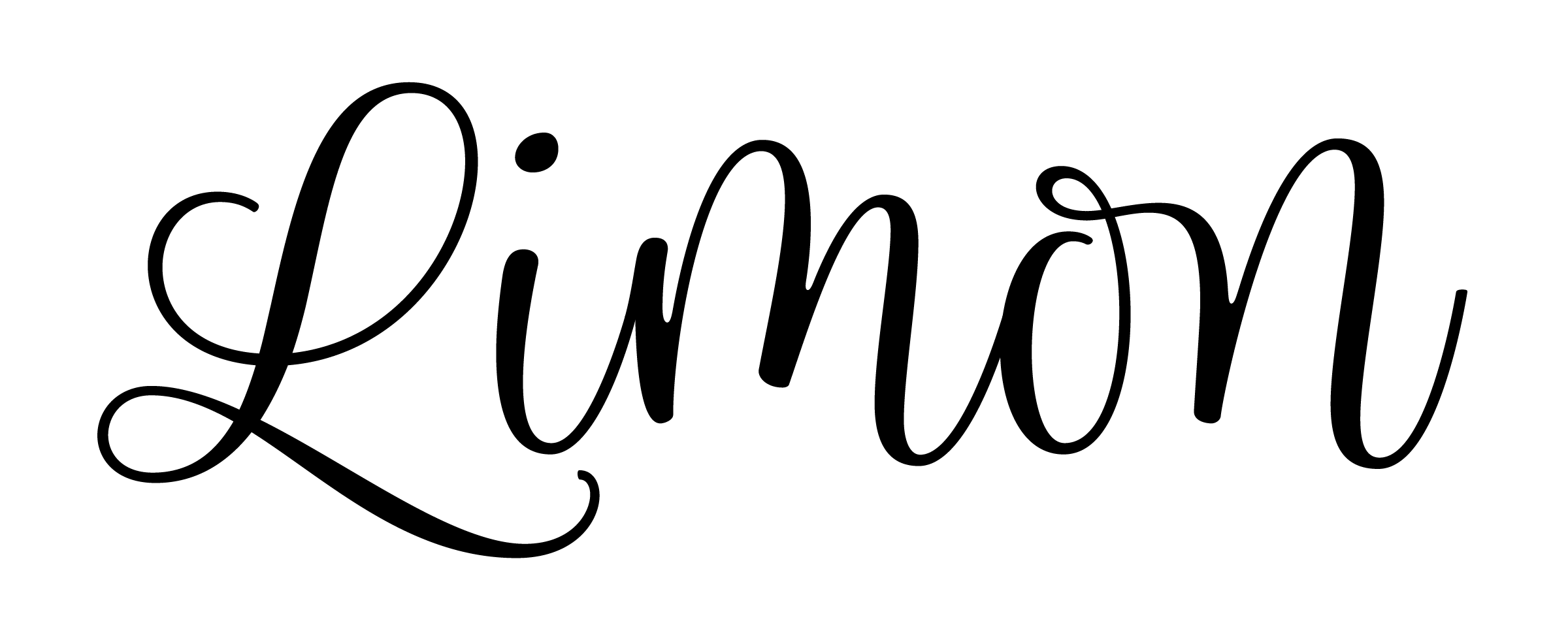
Limon Font Family
Limon font by Typesenses — the words “THIS IS FRESH” in yellow upright sans-serif letters, and “body Splash” in black connected script letters, with a yellow heart-like shape and splashes to the right
Limon font by Typesenses — a pattern of connected script words including “Verbena,” “Simply,” “Oil,” “Yoga,” “Light,” “lips,” “Zen,” “Make up,” “Milk,” “balm,” “Cosmetic,” “Organic,” “shower,” and “honey”
Limon font by Typesenses — a row of hand-drawn icons including leaves, a flower, a feather, and a heart, above the connected script words “paint dingbats with fill font”
Limon font by Typesenses — the word “yellow” in a connected script, with three columns of text below it: “INITIAL stylistic set stylistic alt”, “SMART FONT liga & calt ALWAYS ACTIVATED!”, and “ENDING stylistic set stylistic alt”
Limon font by Typesenses — the words JENGBRE, ORANGE, HONEY, KIWI, BEVERAGES, LIME, AVOCADO, and WATERMELION in various colors and styles, some outlined, some filled, some upright, and some italic.
Limon font by Typesenses — the word “LIMON” in upright serif capitals, surrounded by various phrases in upright serif and connected script, with small heart, leaf, and flourish icons
Limon font by Typesenses — the words “Everyday is a fresh Start” and “Made by Hand just for you” in a connected script, with a small heart icon.
Limon font by Typesenses — a collection of hand-drawn botanical elements, including leaves and berries, in a light olive green outline.
features:
Common Ligatures, Discretionary Ligatures, Stylistic Alternates, Stylistic Sets